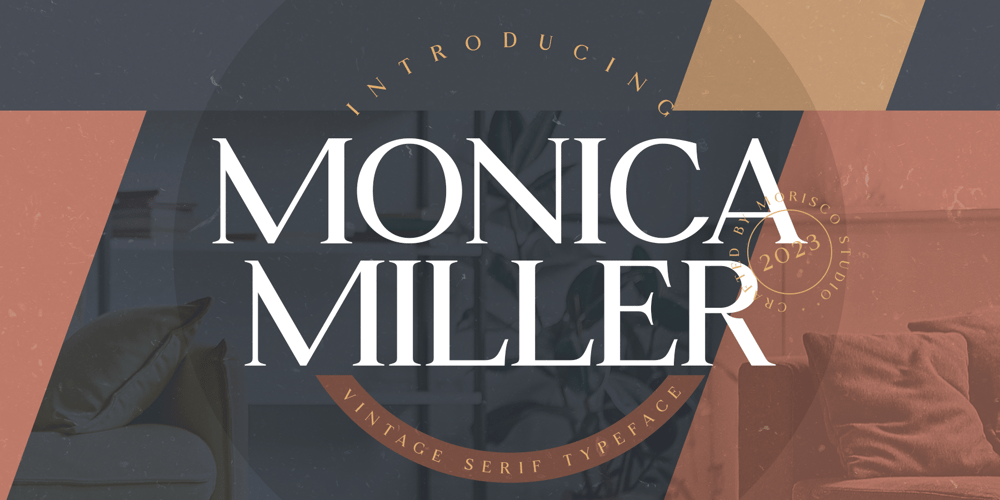
Monica Miller Font Family was designed by Fathur Rahman and published by Morisco Studio. Monica Miller contains 1 styles and family package options. About the ProductMonica Miller is a Vintage serif typeface with a unique character designed by Morisco Studio. This typeface is well-suited for headlines and any project, like branding, print templates, logos, and more.Features: Uppercase & Lowercase Symbols & Punctuation Multilingual Files you get:Monica Miller RegularThis Font is set for Commercial LicenseI really hope you enjoy using Monica Miller. Please don’t hesitate to drop me a message if you have any questions. Thank You and Happy DesigningShow Less